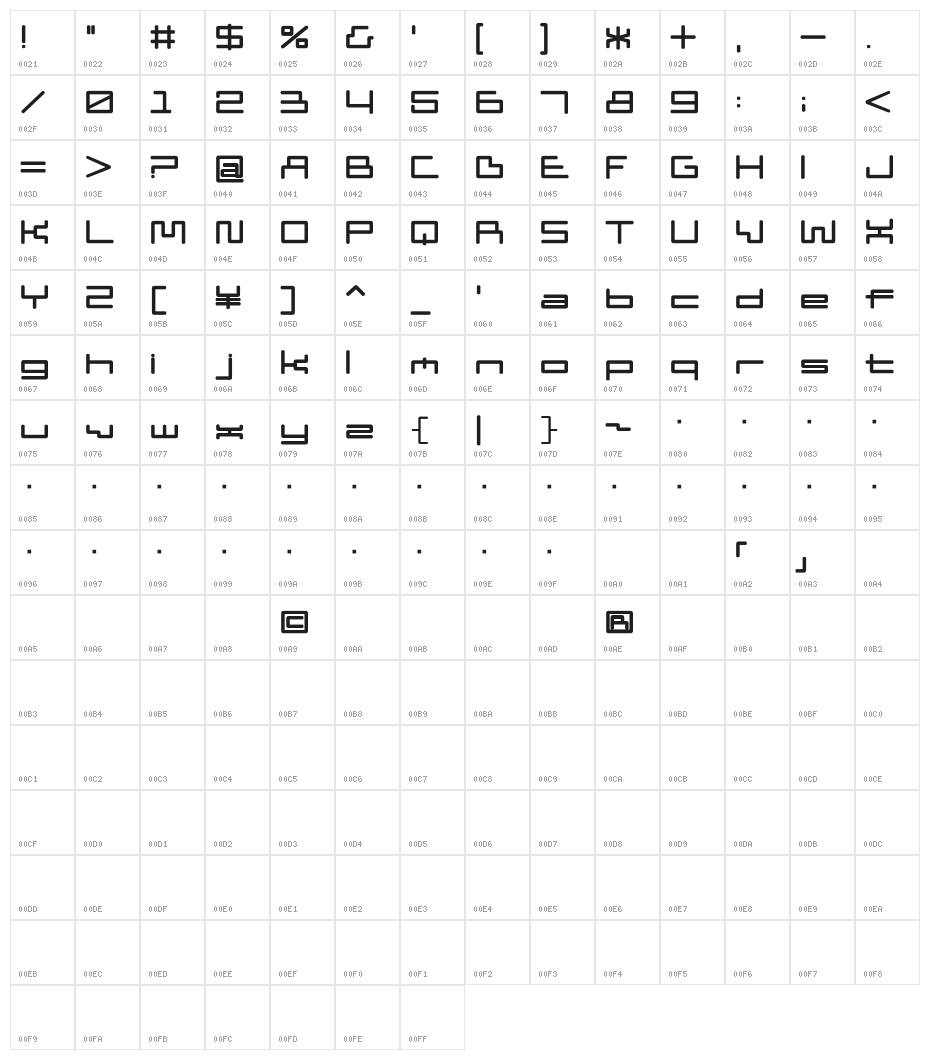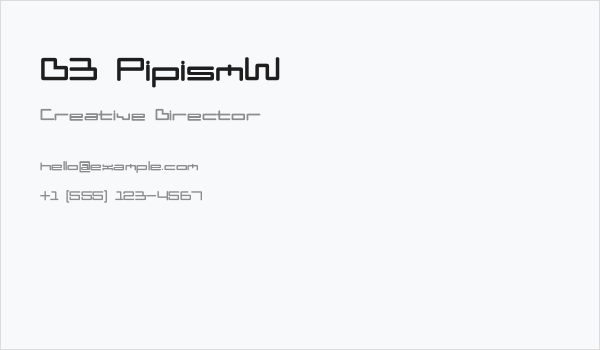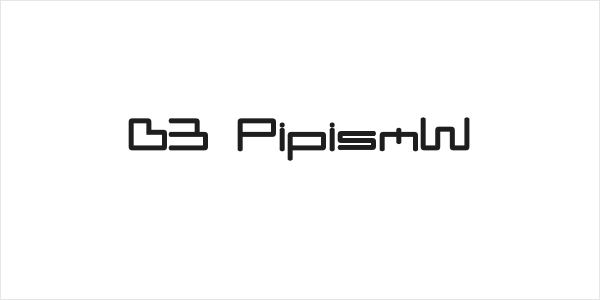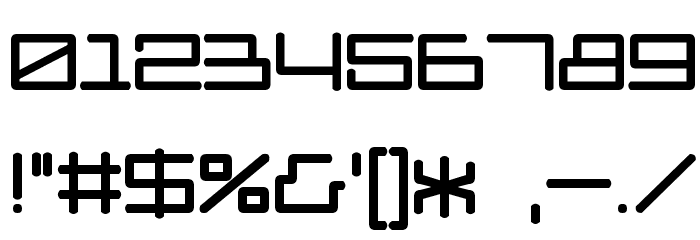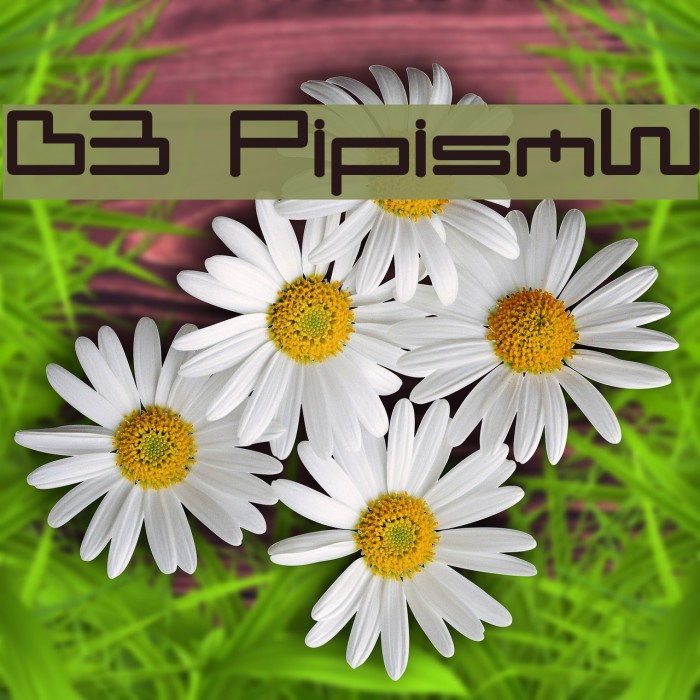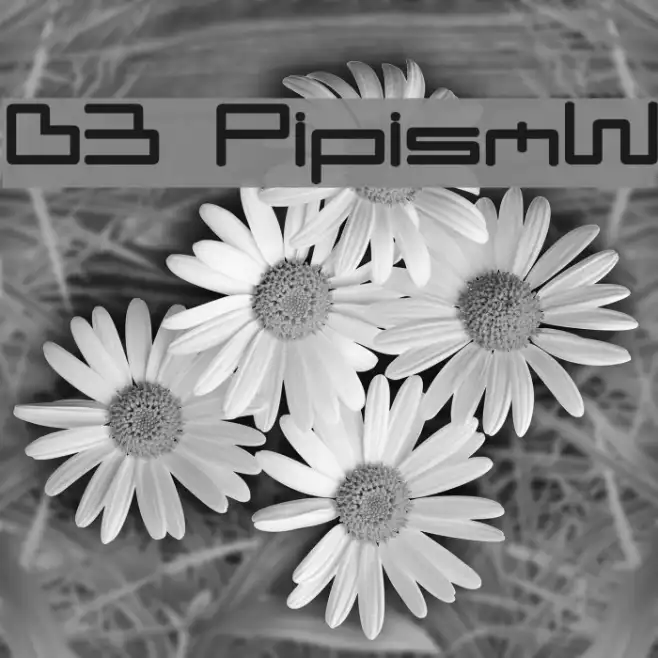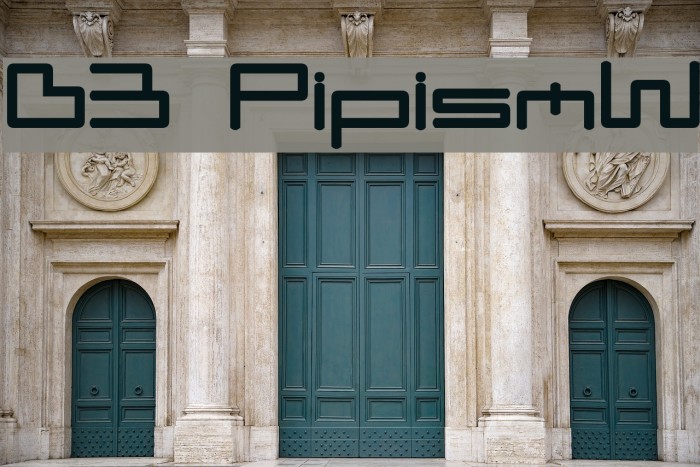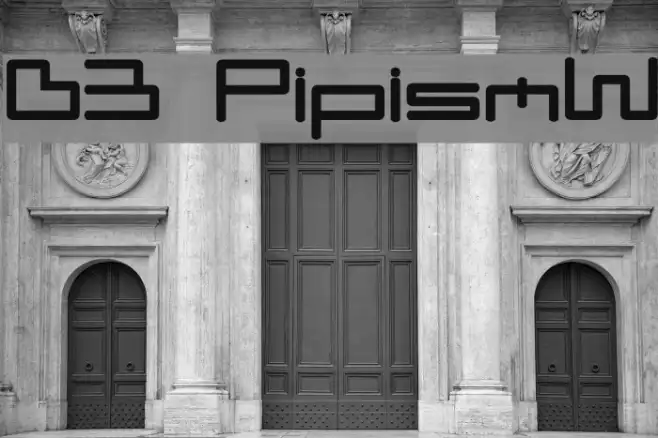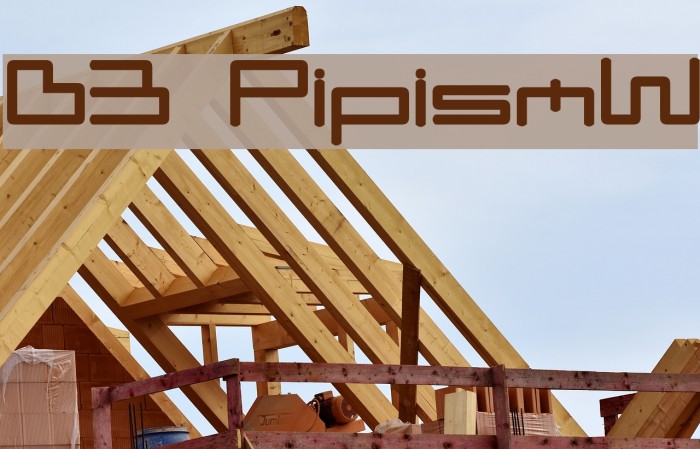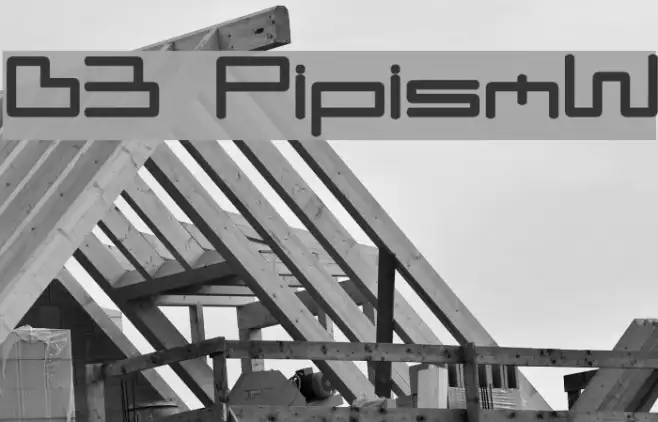
D3 PipismW Font
D3 PipismW Description
This font features a modern, geometric design with a distinct digital aesthetic. Each character is composed of clean, rounded lines that create a futuristic and tech-inspired look. The uppercase and lowercase letters maintain a consistent style, with a uniform height and width that enhances readability. The numerals and special characters follow the same design principles, ensuring a cohesive appearance across all glyphs. The font's structure is minimalistic yet bold, making it suitable for projects that require a contemporary and innovative feel.
| Use Case | Logos, Headlines, Digital interfaces |
| Proposed Projects | Ideal for tech branding, digital interfaces, video game design, and futuristic-themed projects. |